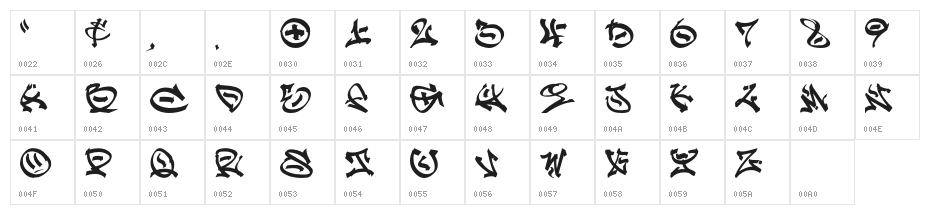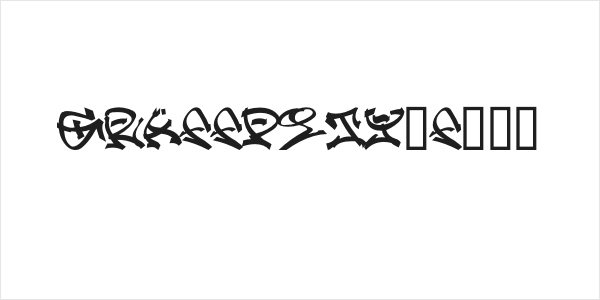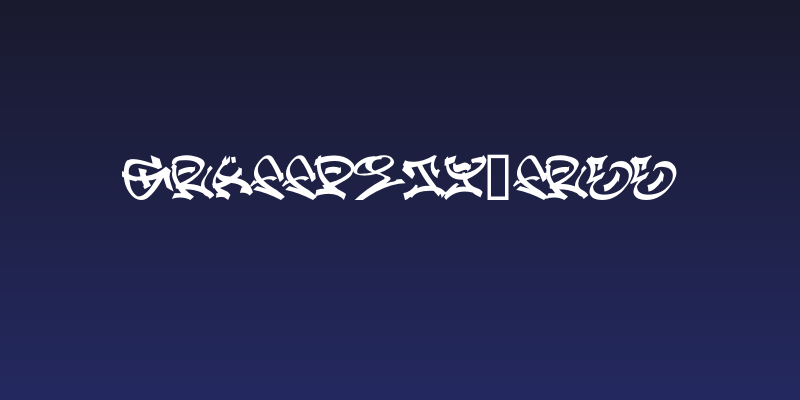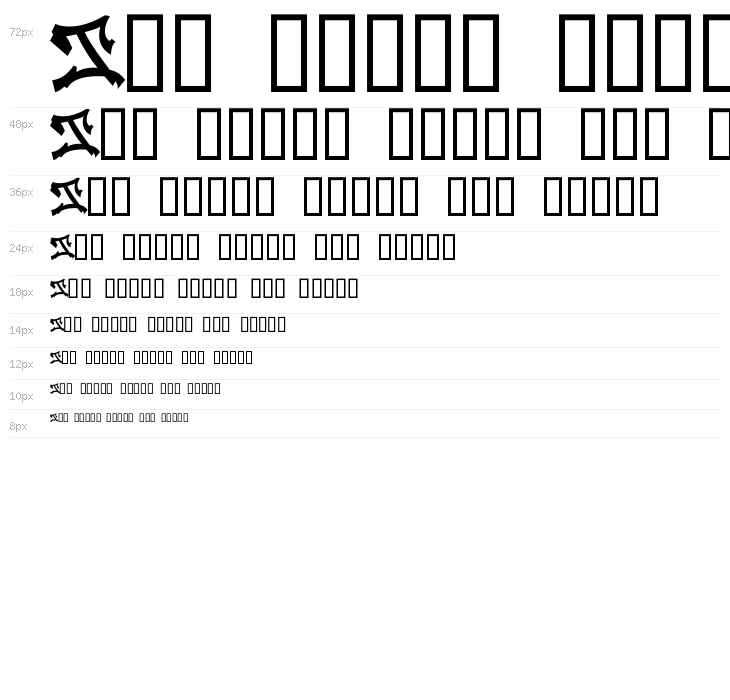
GRAFFPITY_Free Font
GRAFFPITY_Free Description
This font exudes a bold and edgy graffiti style, characterized by its sharp angles and dynamic curves. The uppercase letters are highly stylized, with exaggerated serifs and intricate detailing that give each character a unique, artistic flair. The numbers follow a similar aesthetic, maintaining the bold, urban feel. This font is perfect for projects that require a strong, rebellious statement, such as street art-inspired designs or edgy branding. Its distinct appearance makes it ideal for capturing attention and conveying a sense of creativity and nonconformity.
Overall StyleModern, Urban
Proposed ProjectsStreet art designs, edgy branding, music album covers, urban-themed posters.